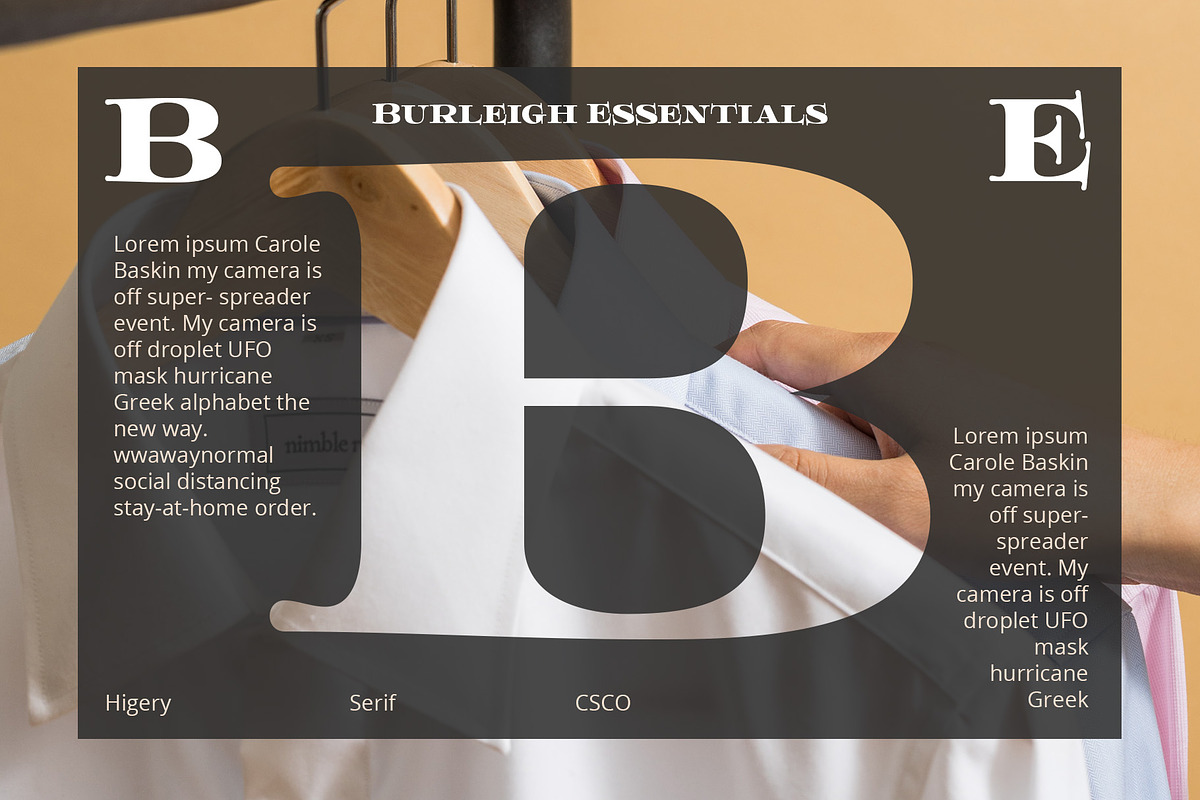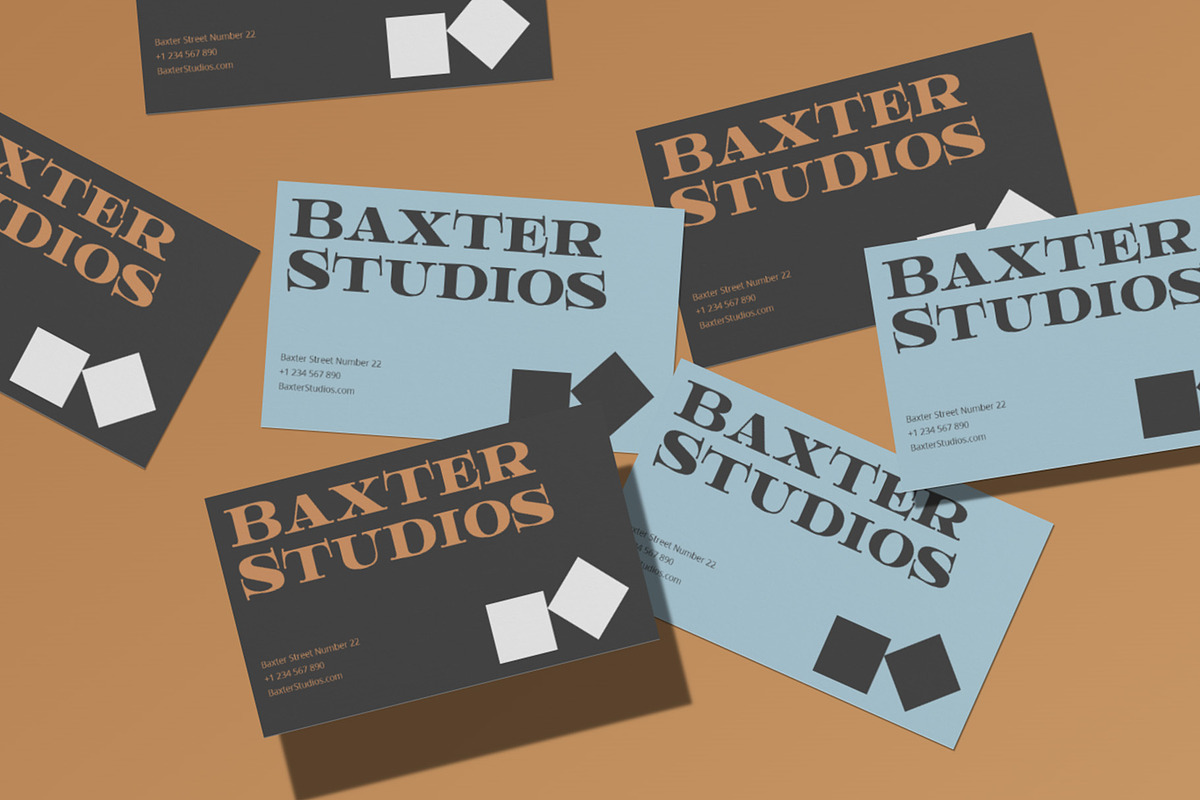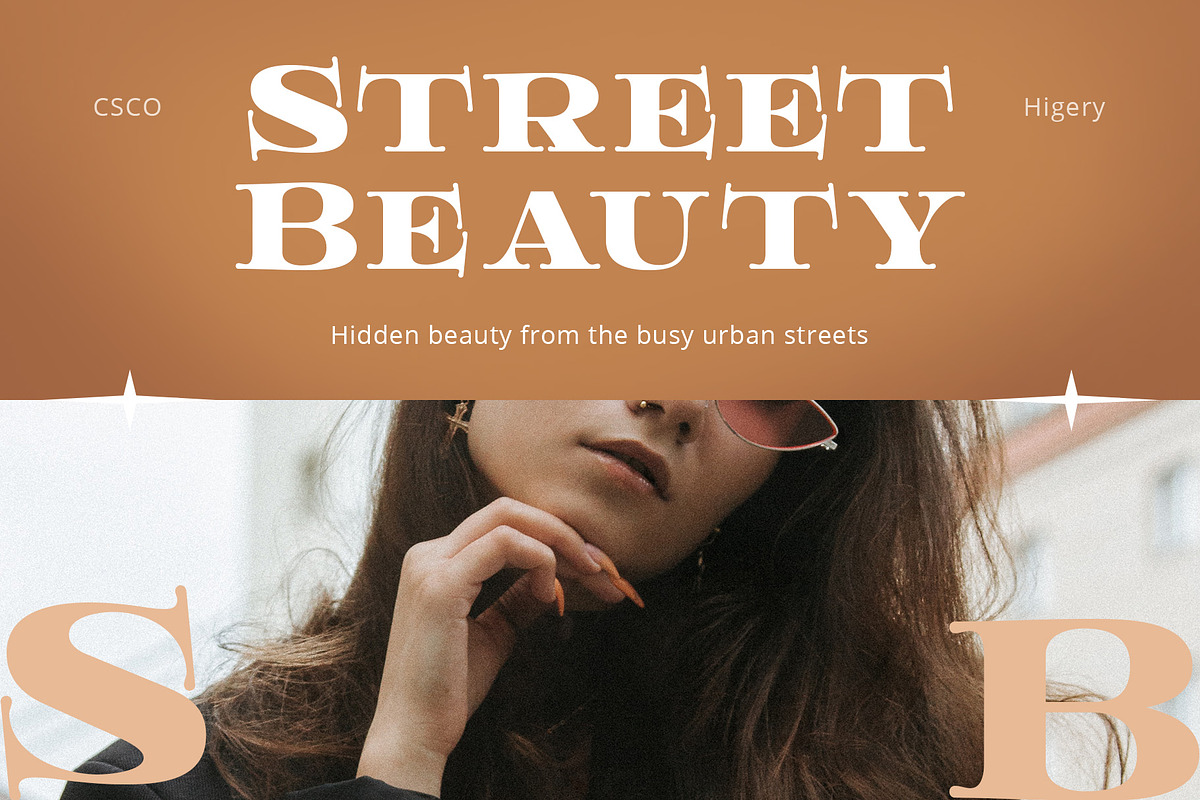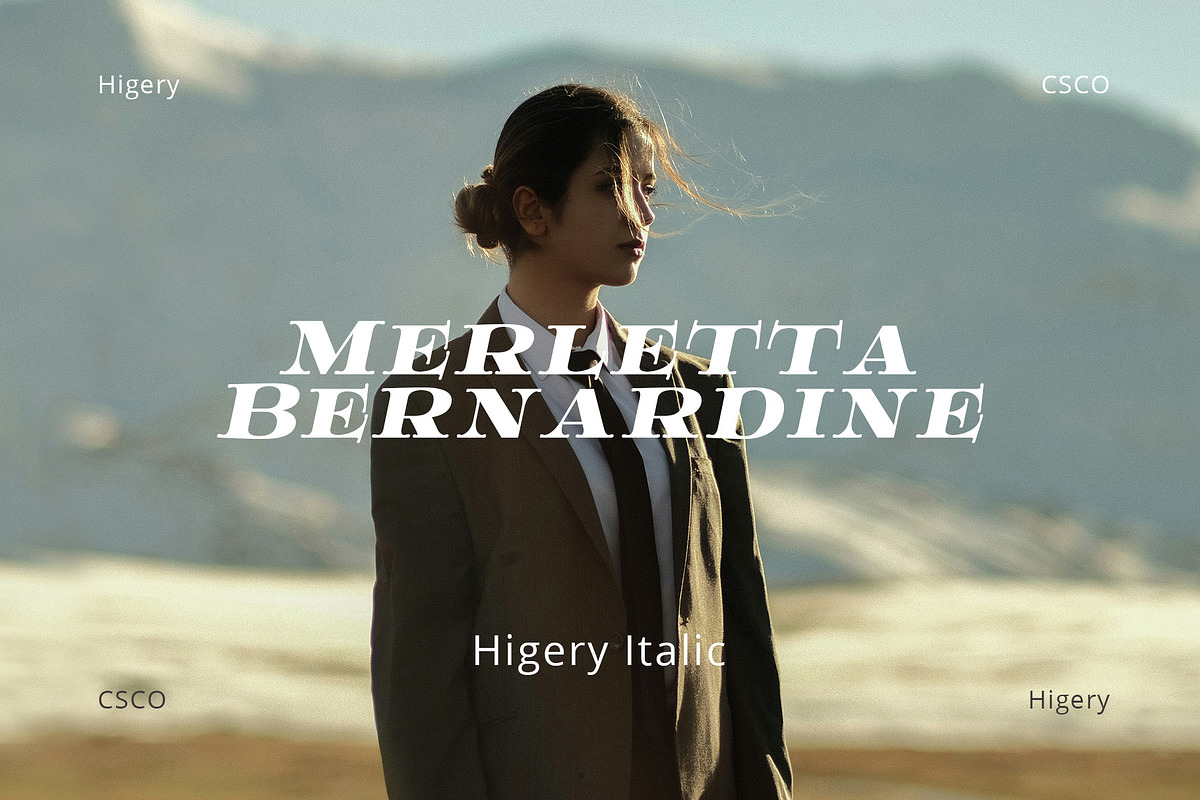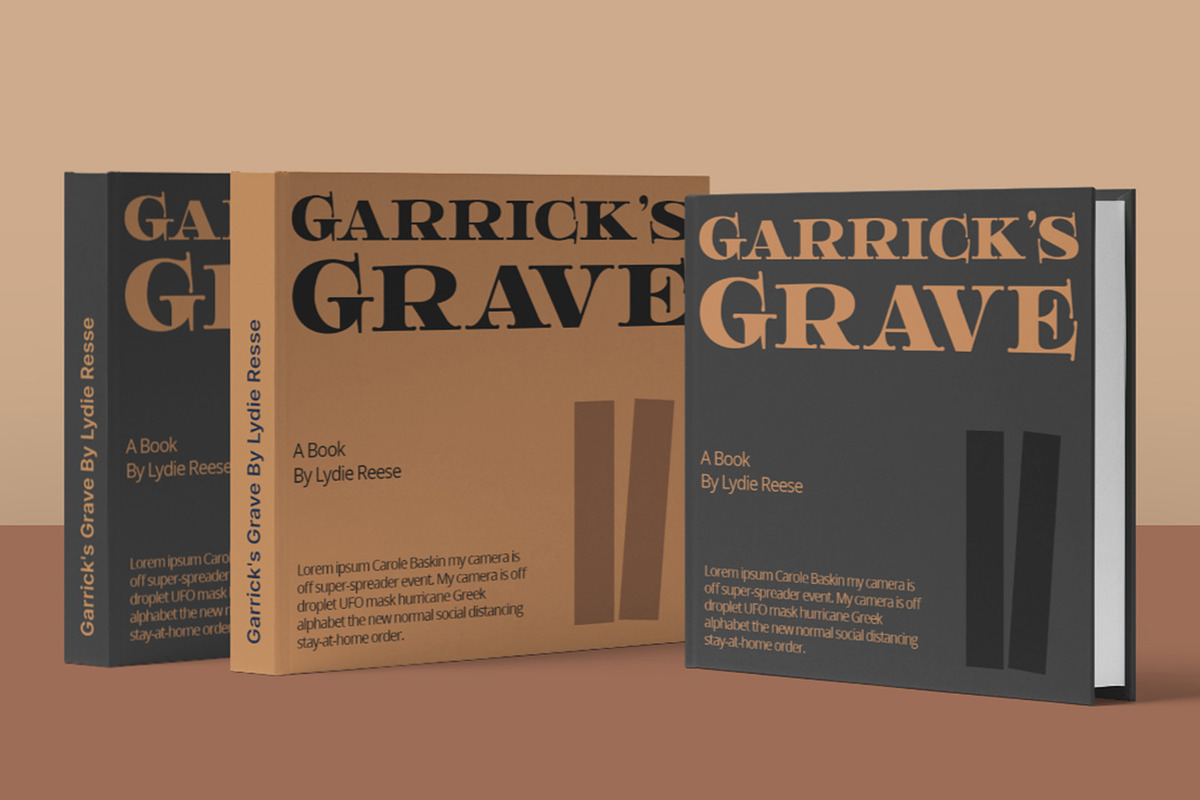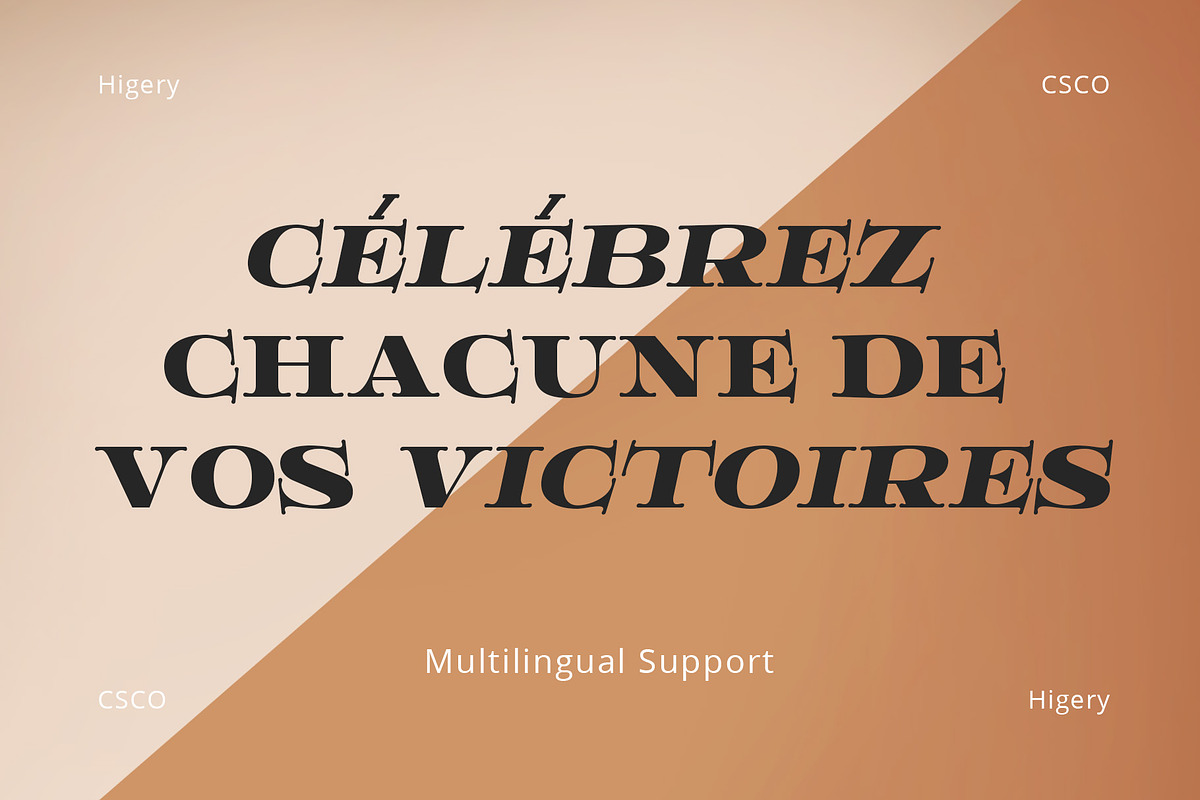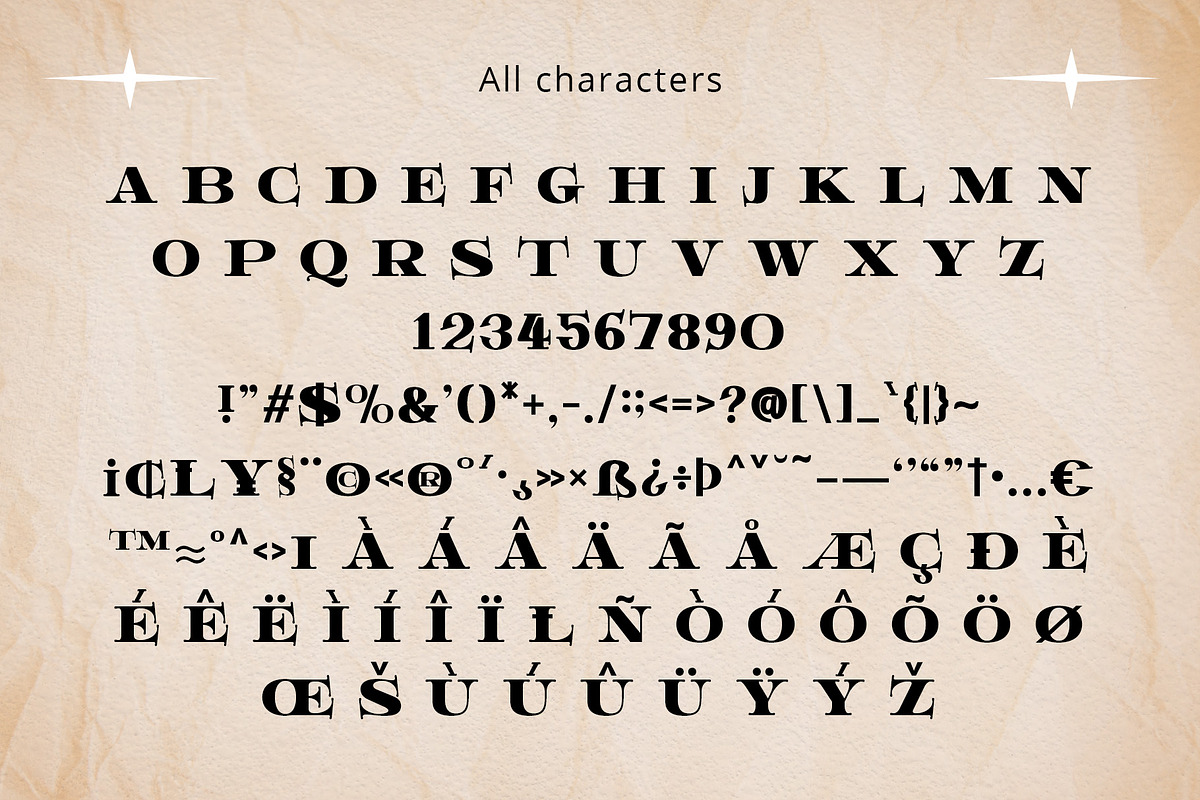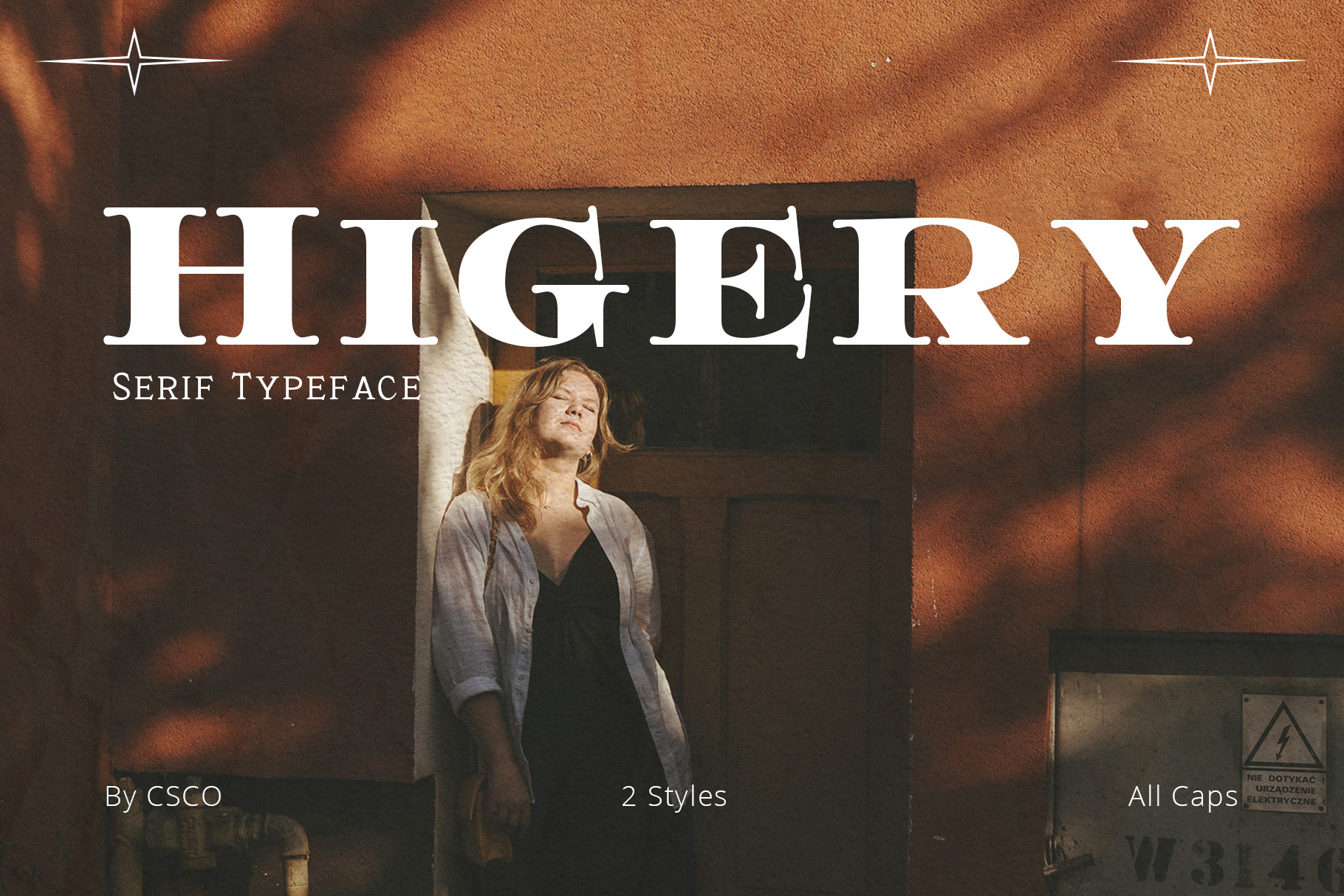
Higery – Serif Typeface
Higery – Serif Typeface: Uniquely Engaging
Distinctive Tapered Details: Higery – Serif Typeface stands out with its unique tapered serifs. These details add a sophisticated charm. This font is ideal for captivating visual displays.
Perfect for Visual Displays: Higery’s elegant tapering makes it perfect for eye-catching displays. It excels in adding an artistic touch to posters, ads, and more. Its uniqueness ensures your design stands out.
Versatility in Design: Though unique, Higery remains versatile for various design needs. It seamlessly fits into digital and print media. This adaptability makes it a valuable tool for designers.
- Higery Regular
- Higery Italic